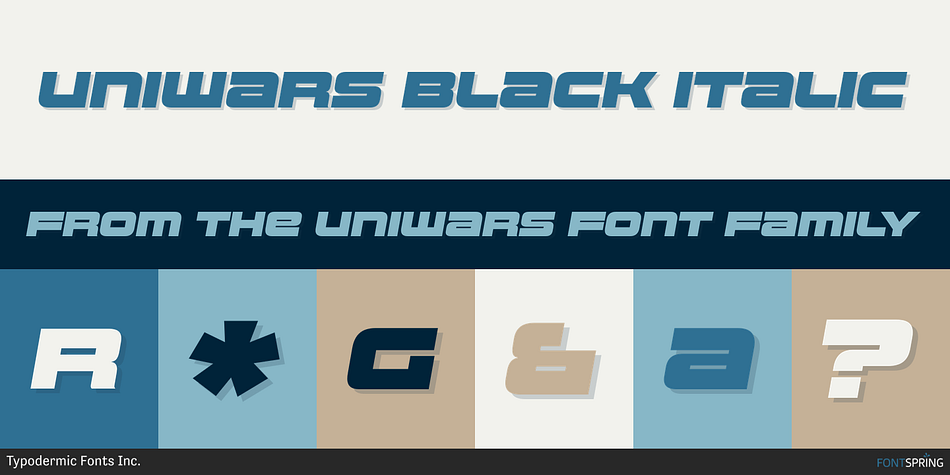
UNIWARS BLACK ITALIC
Uniwars is a display sans font family. This typeface has sixteen styles and was published by Typodermic Fonts Inc.
Are you ready to take your designs to the next level? Look no further than Uniwars, the sleek and modern typeface inspired by industrial Japanese logotypes.
With its bold and unicase letterforms, Uniwars injects a sense of neoteric style into any design. Its wide, extended shape and clean orthogonal style are a true testament to the 20th Century Japanese minimalist/industrial design aesthetic.
But Uniwars isn’t just about style—it’s about functionality too. This typeface has been stripped down to its most basic components, resulting in a clean and efficient design that will elevate any project. And with eight weights and obliques to choose from, Uniwars gives you the flexibility to experiment and find the perfect fit for your specific design needs.